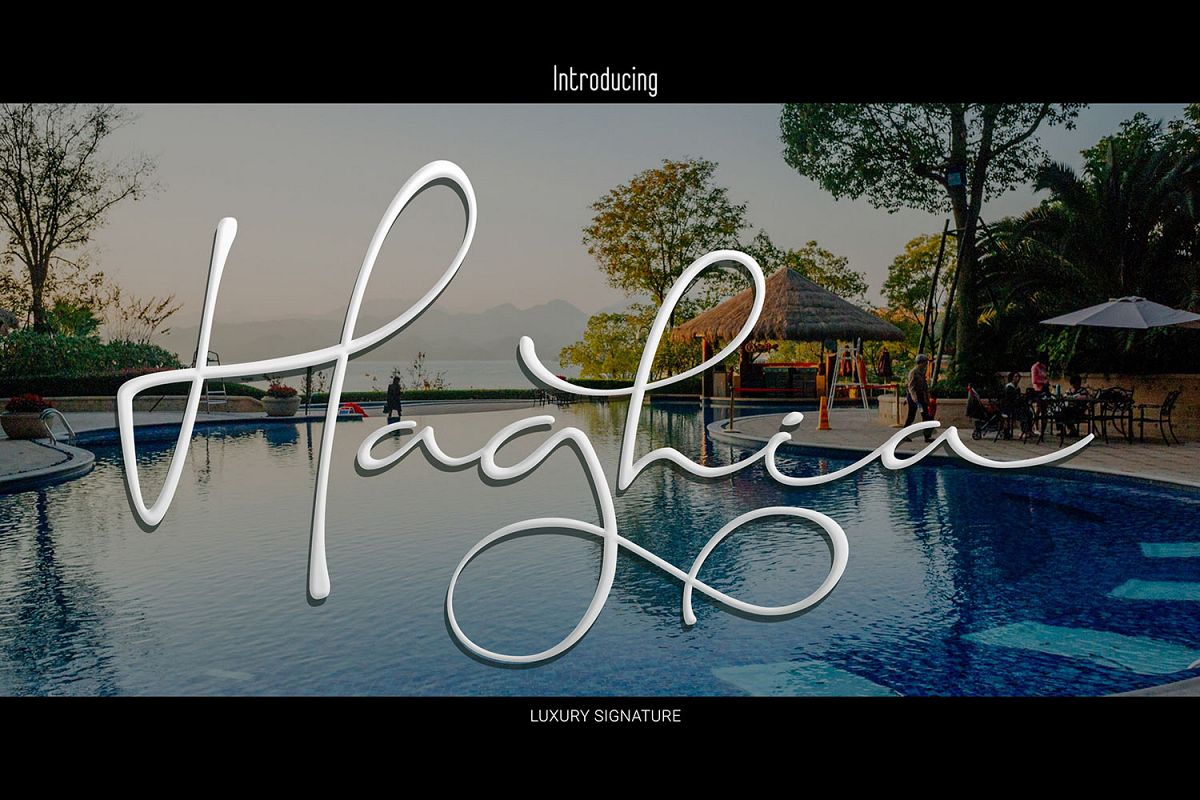
Haghia
The Haghia is an unique signature script. Its handwritten look will add a personal touch to every design. It has a soft and elegant feel and is perfect for adding a luxurious look to your designs.It’s perfect for branding, but it’s also equipped with a number of alternatives that allow you to make a feminine and masculine logos.